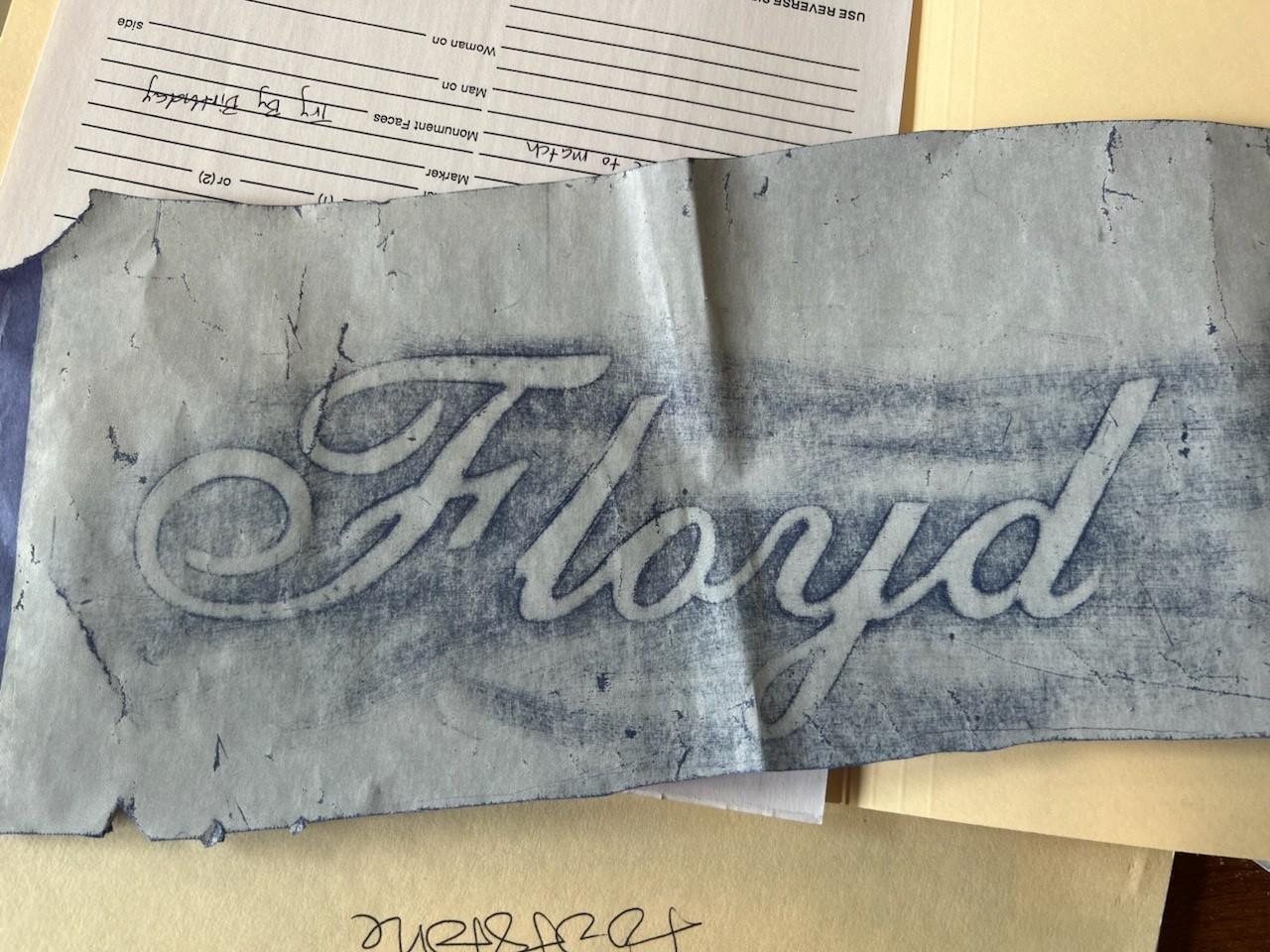
Good evening, this is a font based on either English 111 Vivace, or Shelley Script Allegro. These are two print industry fonts that have the same basic letter shapes. However, what you have there is a bit bolder, so it has either been modified by the engraver, or is another version of one of the two fonts, perhaps in some monument design or sign making software.